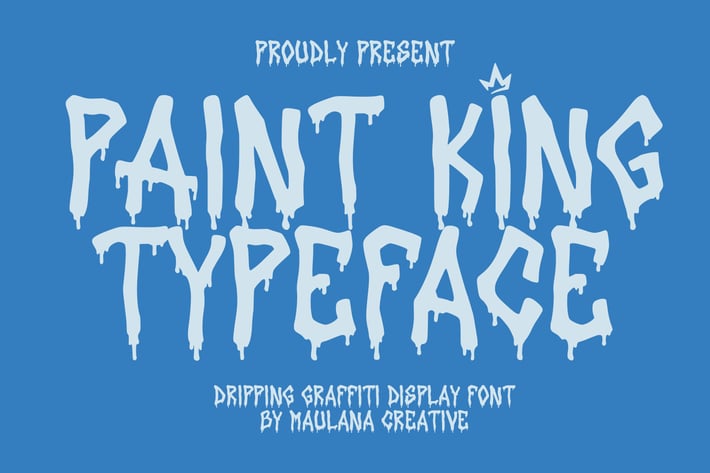
Paint King Dripping Graffiti Display Font
Paint King dripping graffiti display font. Heavy stroke, fun character with a bit of ligatures. To give you an extra creative work. Paint King dripping graffiti display font support multilingual more than 100+ language. This font is good for logo design, Social media, Movie Titles, Books Titles, a short text even a long text letter and good for your secondary text font with script or serif. Make a stunning work with Paint King dripping graffiti display font.